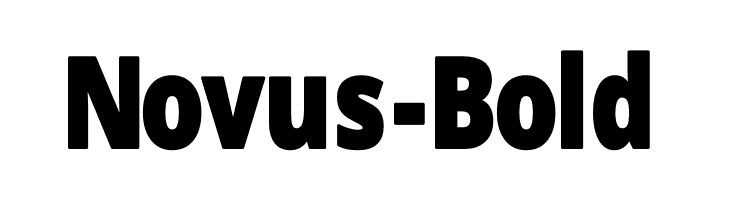
A bold, modern font with clean lines and a strong presence.
A bold, futuristic font with sharp, angular lines and a geometric style.
A playful, hand-drawn font with dynamic and irregular strokes.
A playful, casual handwritten font with thin, whimsical strokes.
A dynamic and expressive handwritten font with fluid, energetic strokes.
A bold, italicized font with smooth, rounded edges and a modern, friendly style.
Hand-drawn WWI soldier illustrations form each character.
A bold, geometric font with a three-dimensional shadow effect, perfect for modern designs.